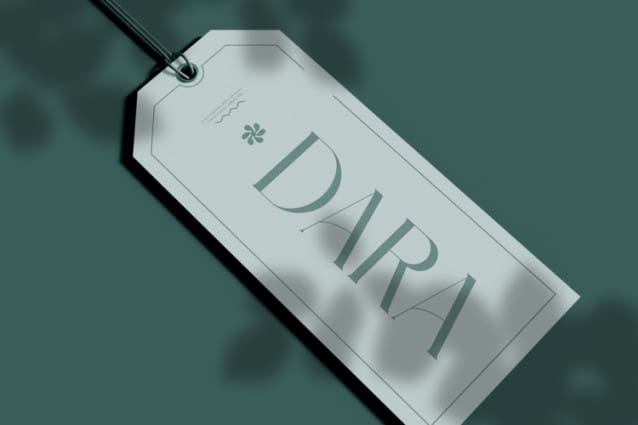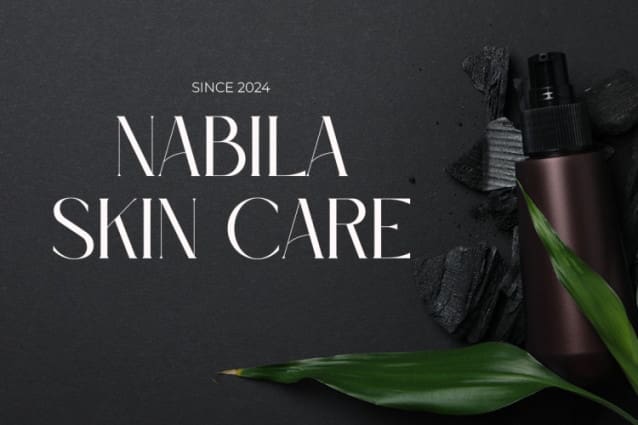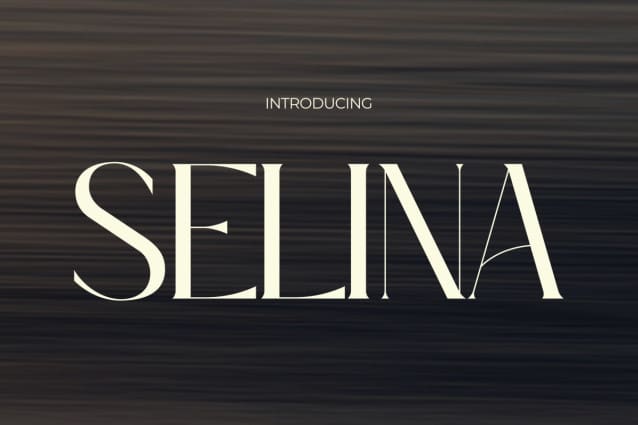
Selina Font
Selina Font a perfect blend of elegance and femininity. With its gracefully crafted characters and a touch of girlish charm, Selina brings a unique sophistication to your design projects. This font is designed to capture the essence of timeless elegance with a playful twist, making it an ideal choice for those seeking a perfect balance between sophistication and a touch of femininity. Elevate your creations with Selina Font, where each letter tells a story of grace and charm. Available now to infuse your designs with a touch of elegance and girly allure